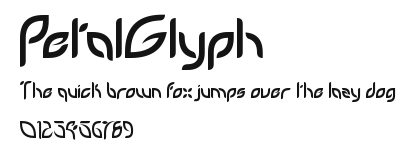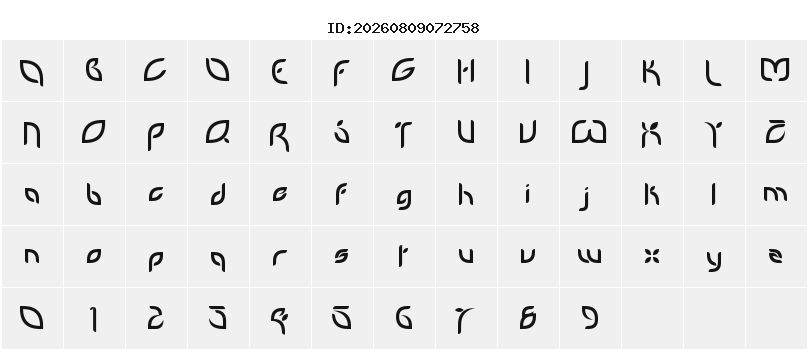
PetalGlyph Preview
• Font Name: PetalGlyph
• Designer: Stephen Knouse
• Manufacturer: Essqué Productions
About PetalGlyph.ttf
PetalGlyph.ttf is a modern, elegant sans-serif font designed for ultimate readability and visual harmony. Perfect for branding, headlines, web design, and print materials.